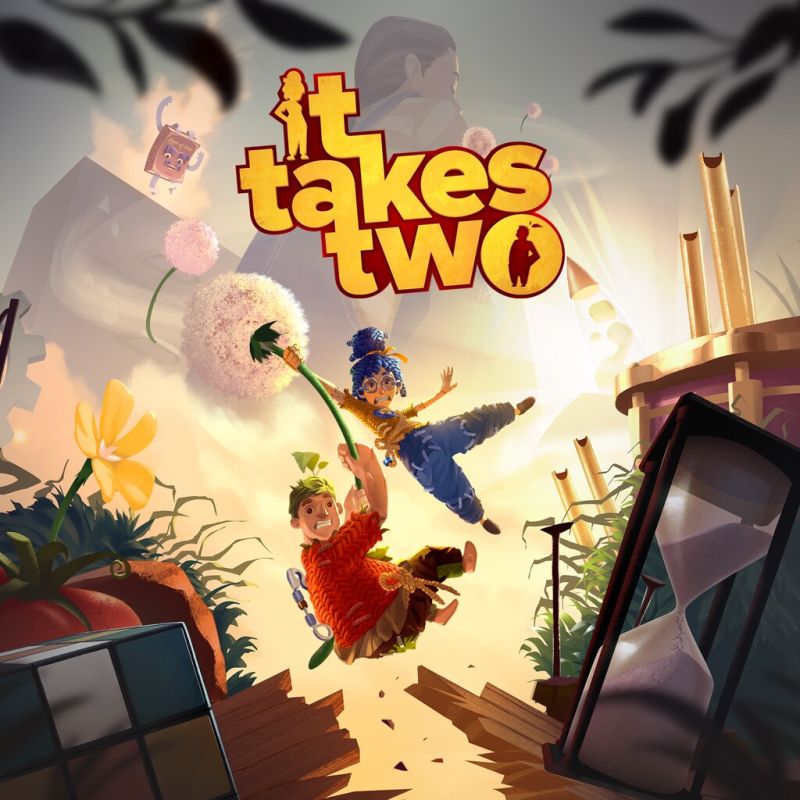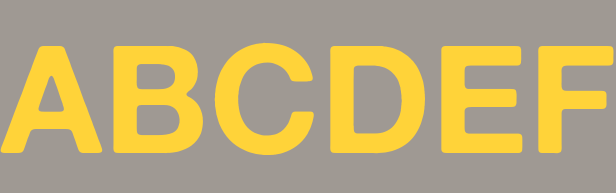
It Takes Two (video game) Font
ActionIt Takes Two is an action-adventure genre-bending platform game developed by Hazelight Studios. The gameplay is purely co-play featuring a clashing couple Cody and May, two humans turned into dolls by a magic spell. Trapped in a fantastical world, they’re reluctantly challenged with saving their fractured relationship by the suave love guru Dr. Hakim.
The logo was custom designed based on Mark Simonson’s Proxima Nova Black. The entire Proxima Nova family is offered in eight weights: thin, light, regular, medium, semibold, bold, and extrabold, each with corresponding italics, small capitals styles, and condensed and extra condensed widths.